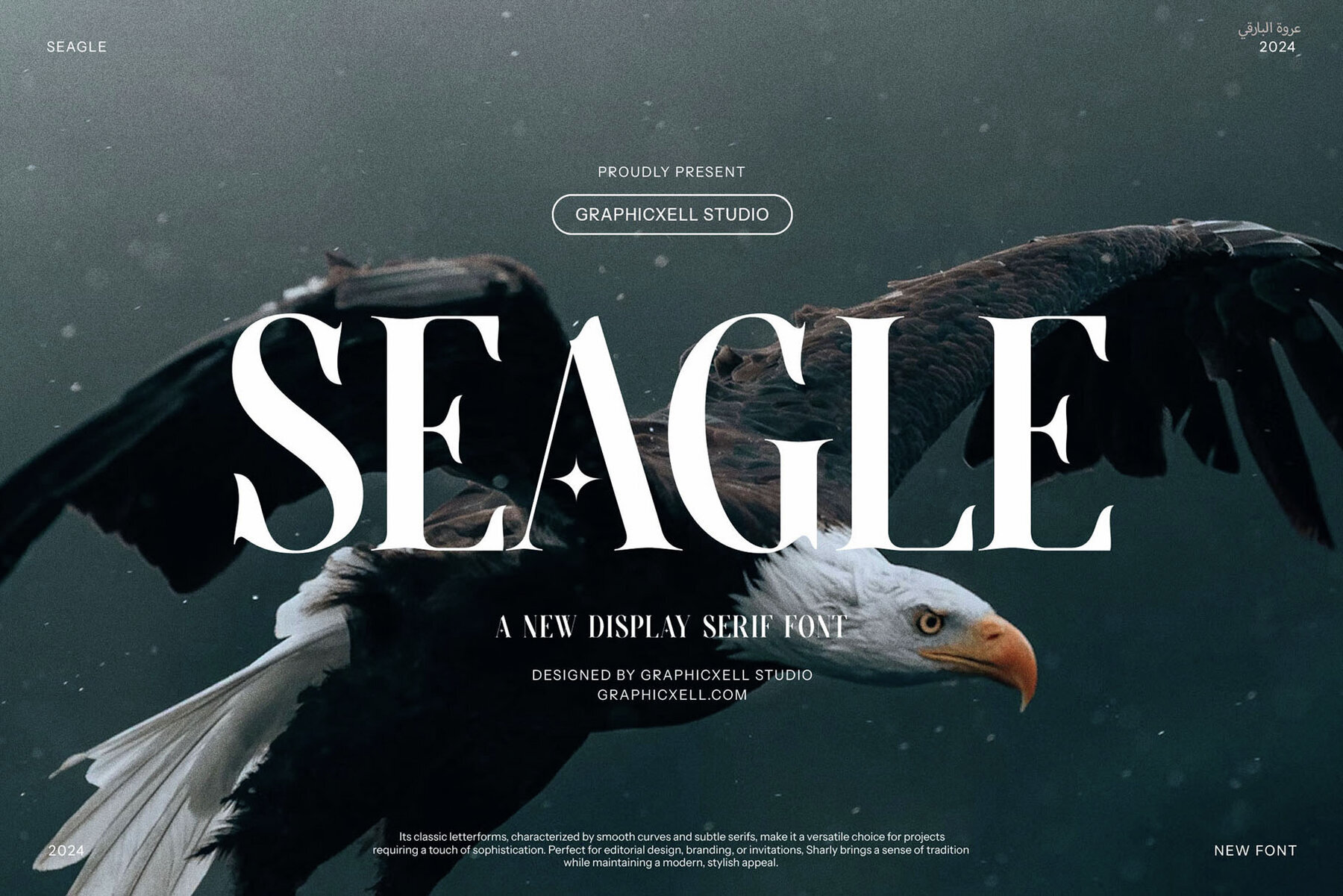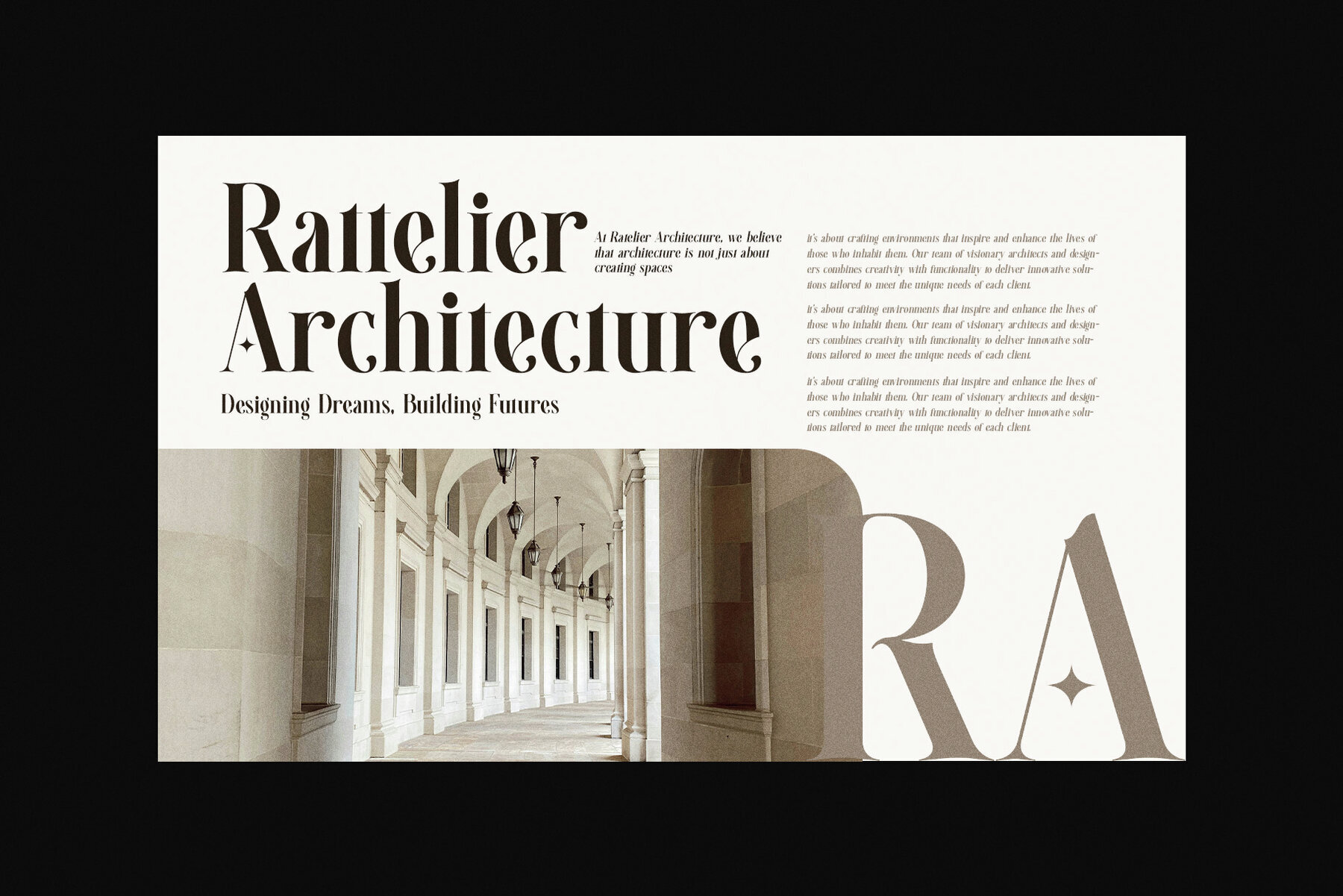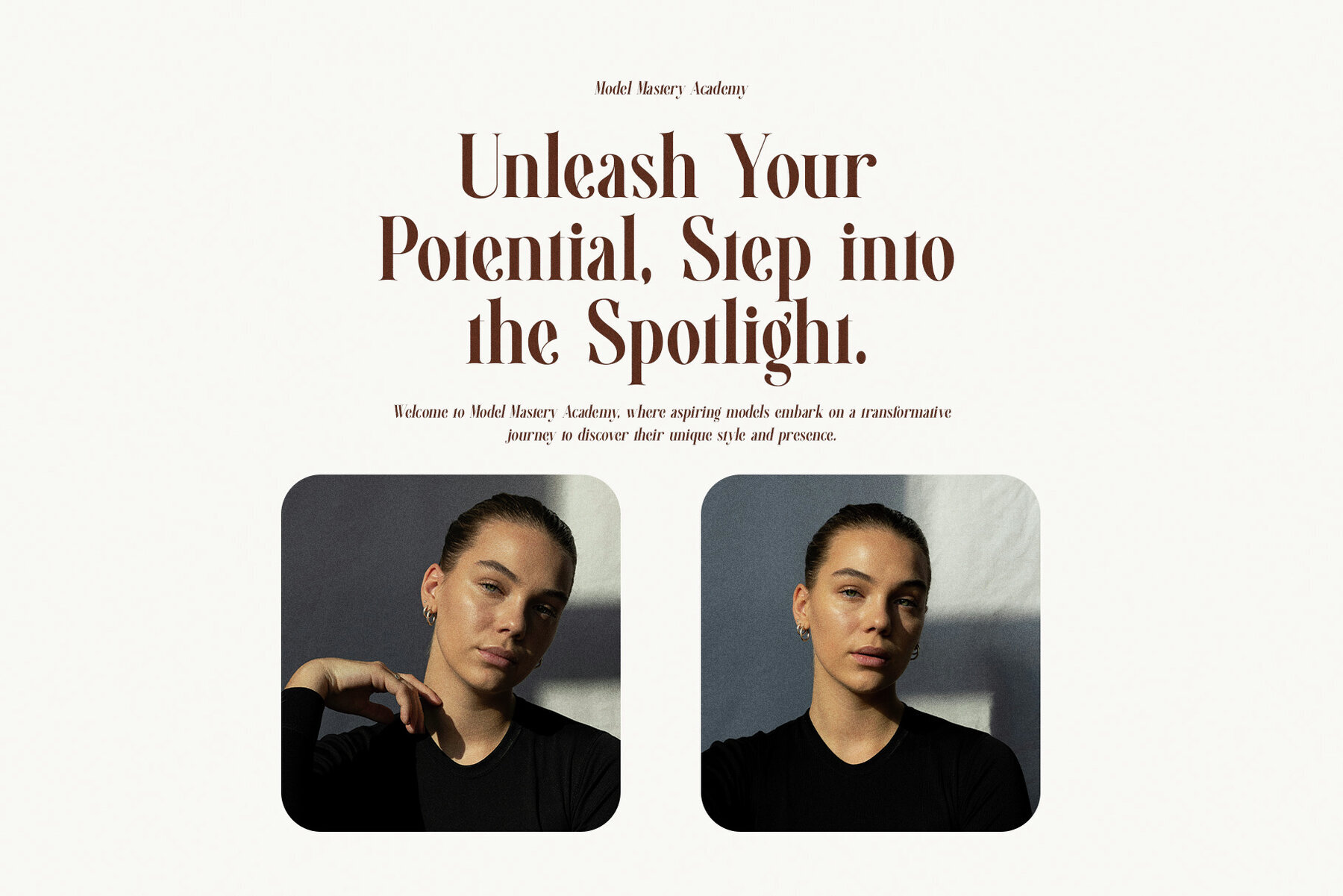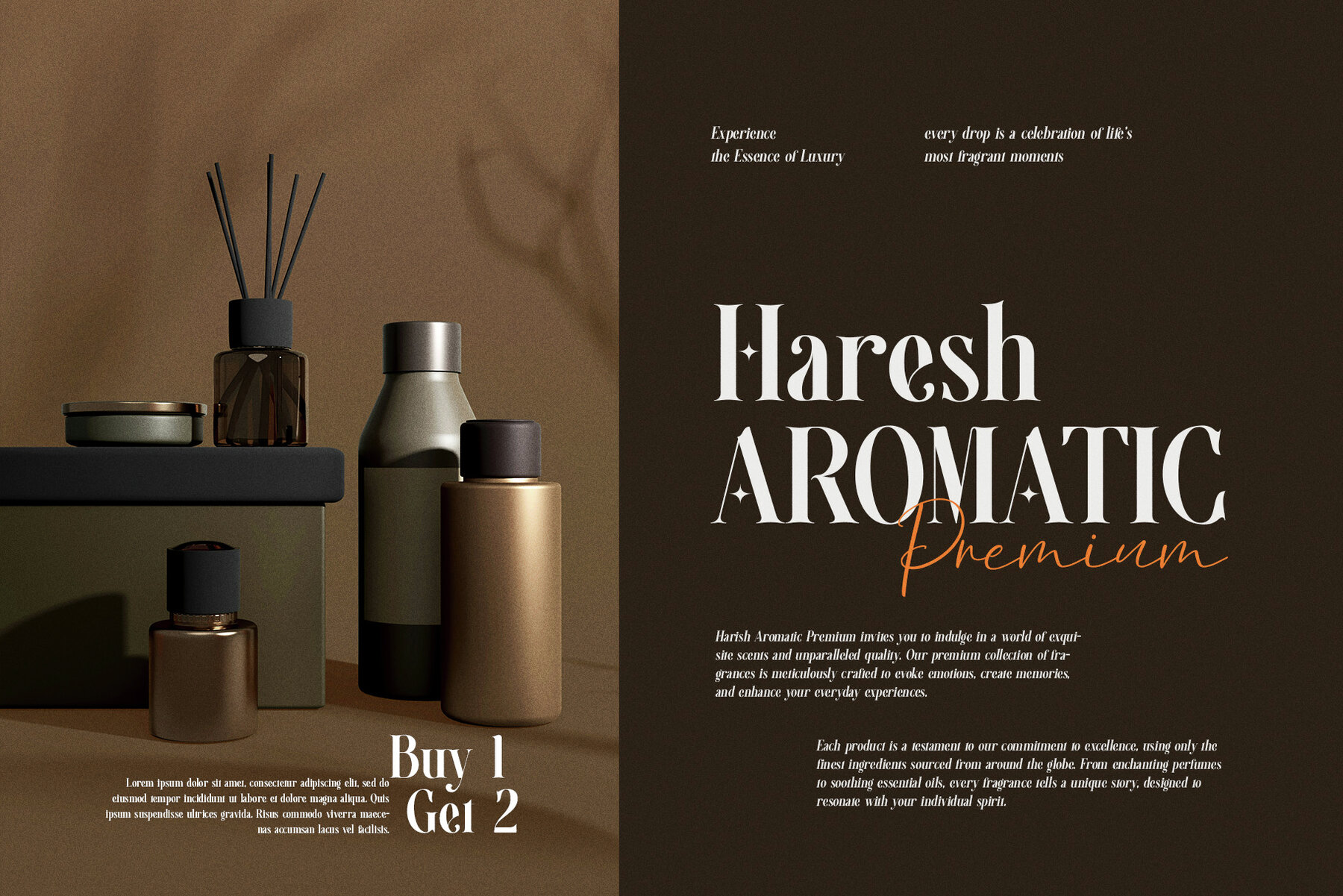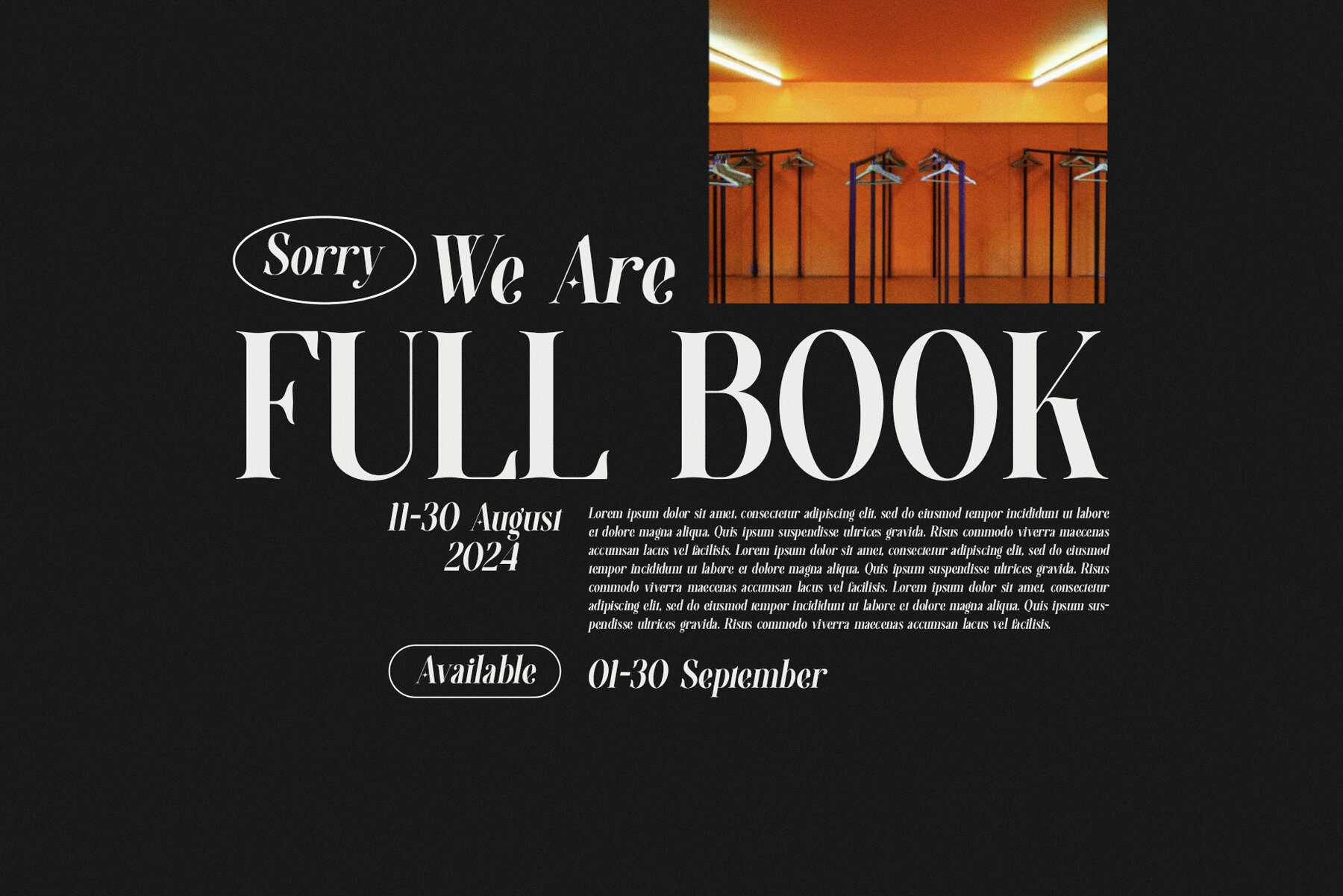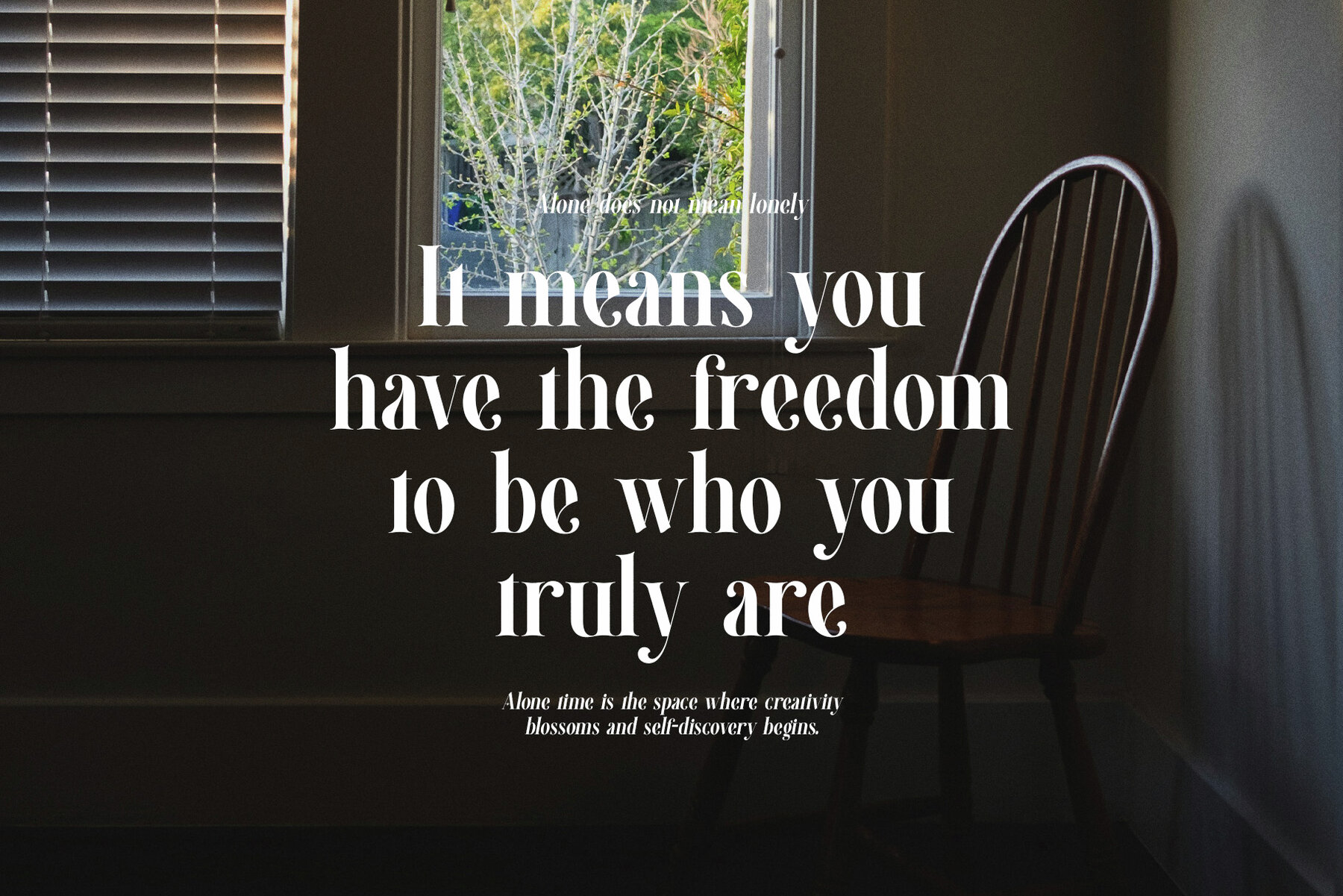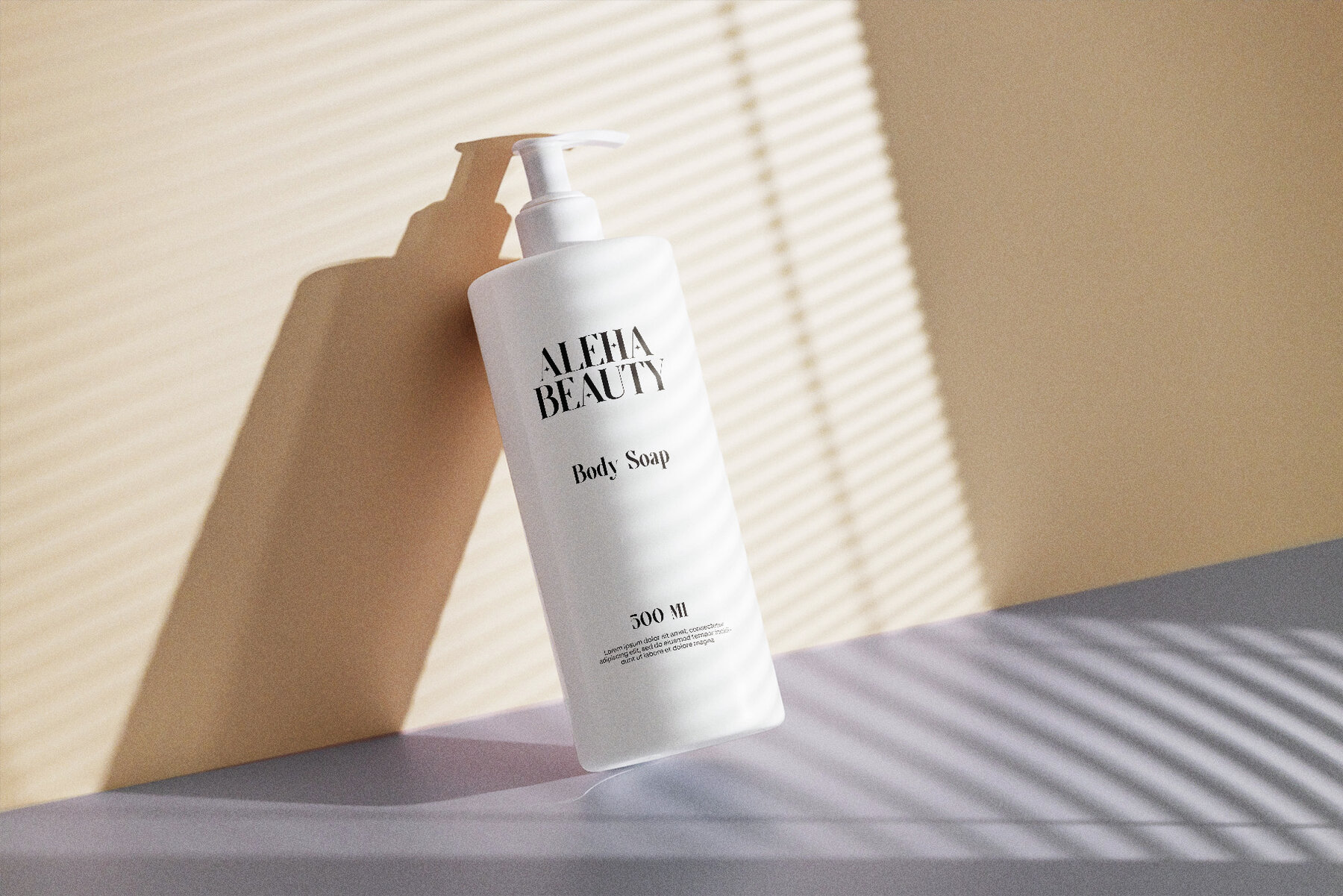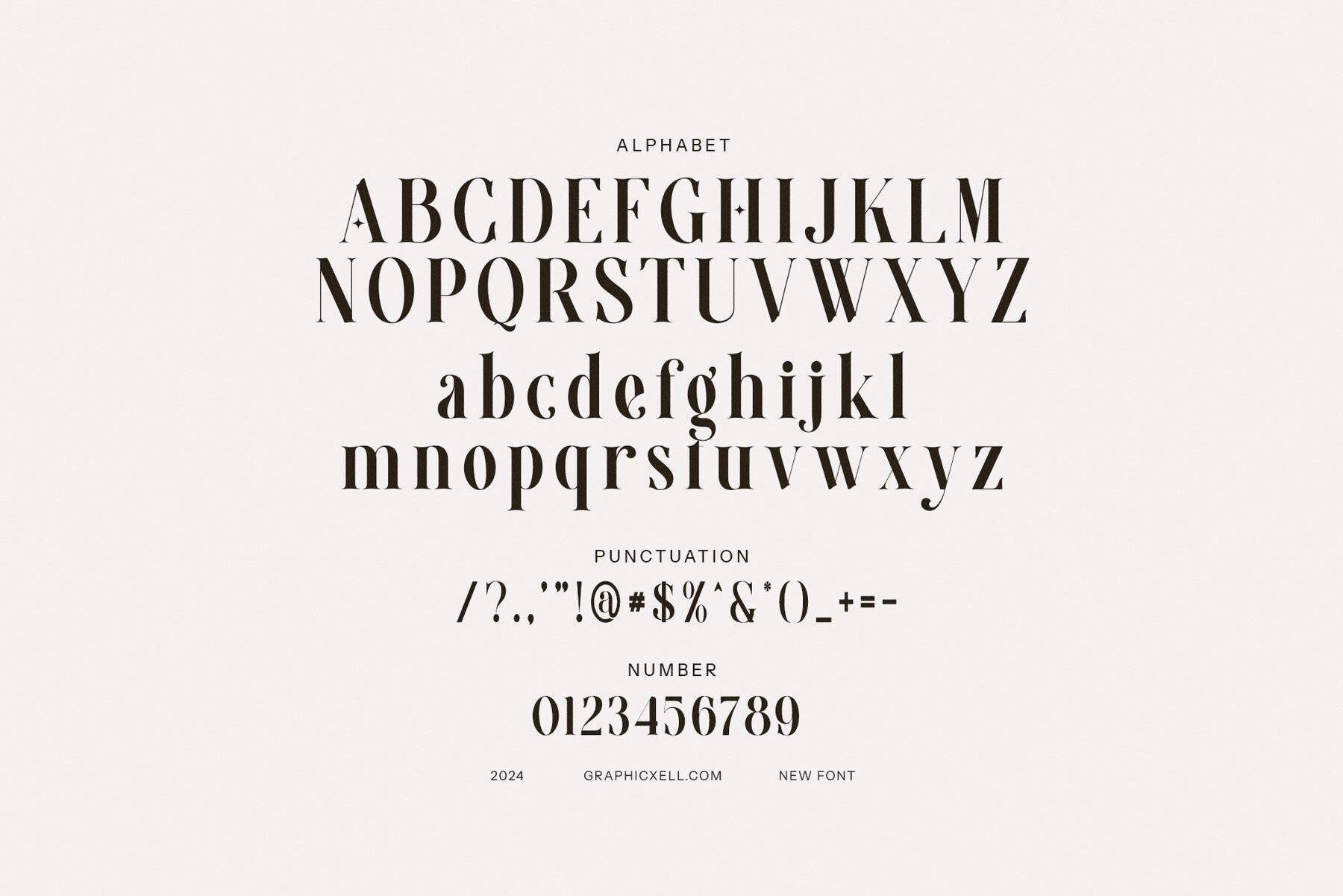
Seagle Font
SEAGLE
The Seagle Elegant Serif Font encapsulates a perfect blend of sophistication and modern design with its gracefully crafted serifs and distinctive letterforms. Each meticulously designed character presents a unique silhouette, making this typeface much more than just a font—it's a sophisticated artistic statement. Featuring clean lines and stylish curves, Seagle offers a harmonious balance that not only ensures legibility but also enhances visual engagement. Its versatility shines in various applications, from luxurious logo design to high-end magazine layouts, delivering an immediate visual impact that communicates refinement and class.
Seagle's modern serif design rejuvenates traditional typography with a fresh, contemporary perspective. Ideal for branding projects, it exudes a sense of authenticity and prestige, seamlessly adapting across both digital and print mediums—from product packaging to striking advertisements. The font's exquisite attention to detail includes subtle nuances in structure and a variety of ligatures and stylistic alternates, providing designers the creative flexibility to tailor their projects. This adaptability encourages innovative expressions that captivate audiences, making Seagle a valuable tool for designers keen on crafting impactful and sophisticated visuals.